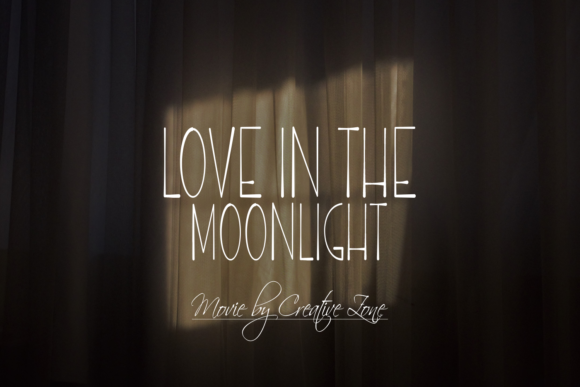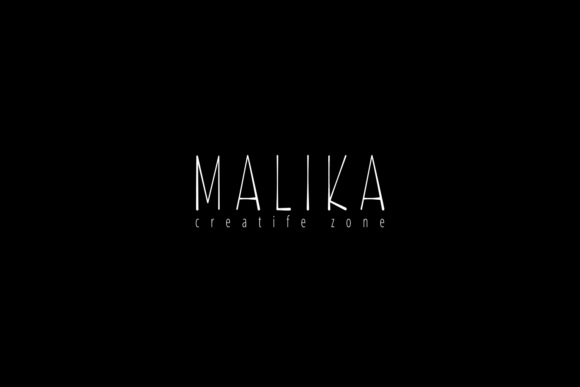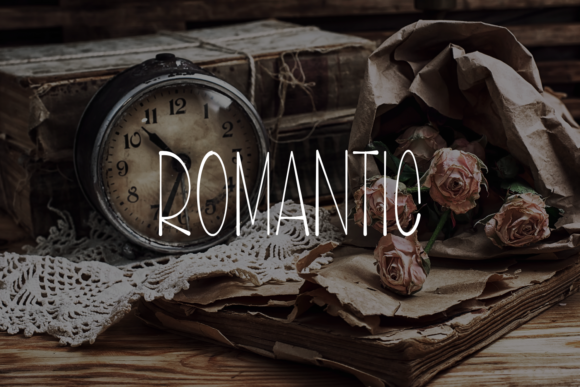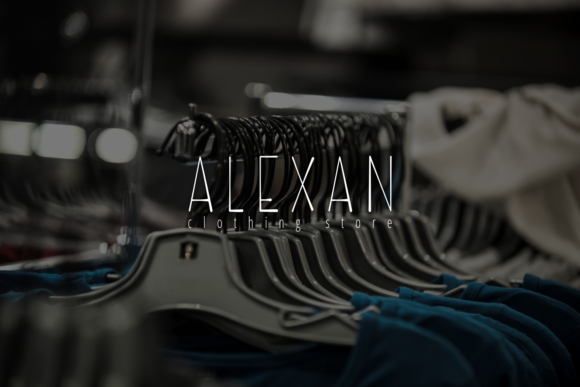
Discover the Elegance of Alho Font: A Minimal and Versatile Sans Serif
In the world of typography, fonts play a crucial role in conveying messages, evoking emotions, and creating lasting impressions. For designers and crafters, finding the perfect font can be a daunting task, but today, we’re excited to introduce you to Alho Font, a game-changing sans serif font that will elevate your creative projects to new heights.
What is Alho Font?
Alho Font is a minimal and thin lettered sans serif font, designed to make your creative ideas stand out. Its sleek and elegant design makes it an incredibly versatile font that can be matched to a wide range of projects. Whether you’re working on a branding campaign, a website, or a crafting project, Alho Font is the perfect choice.
Key Features of Alho Font
- Minimalist Design: Alho Font boasts a clean and minimalist design, making it perfect for projects that require a touch of elegance and sophistication.
- Thin Lettering: The font’s thin lettering ensures that your text remains clear and legible, even at small sizes.
- Sans Serif: The sans serif design of Alho Font makes it easy to read and versatile enough to be used in a variety of contexts.
- Highly Versatile: Alho Font can be used in a wide range of projects, from branding and advertising to web design and crafting.
Why Choose Alho Font?
With so many fonts available, why choose Alho Font? Here are just a few reasons why designers and crafters love this font:
- Elegance and Sophistication: Alho Font adds a touch of elegance and sophistication to any project, making it perfect for high-end brands and luxury products.
- Readability: The font’s clear and legible design ensures that your message is conveyed effectively, even at small sizes.
- Flexibility: Alho Font can be used in a variety of contexts, from digital media to print materials.
How to Use Alho Font in Your Projects
Alho Font is incredibly easy to use and can be incorporated into your projects in a variety of ways:
- Branding and Advertising: Use Alho Font to create stunning logos, business cards, and ad campaigns that exude elegance and sophistication.
- Web Design: Add Alho Font to your website to create a clean and modern look that will engage your visitors.
- Crafting and DIY: Use Alho Font to create beautiful signs, labels, and other craft projects that require a touch of elegance.
Tips and Tricks for Getting the Most Out of Alho Font
To get the most out of Alho Font, here are a few tips and tricks to keep in mind:
- Use it with contrasting colors: Alho Font looks stunning when paired with contrasting colors, so don’t be afraid to experiment.
- Experiment with different sizes: The font’s thin lettering ensures that it remains clear and legible at small sizes, so don’t be afraid to experiment with different sizes.
- Pair it with other fonts: Alho Font can be paired with other fonts to create a unique and eye-catching look.
In conclusion, Alho Font is a game-changing sans serif font that is sure to elevate your creative projects to new heights. Its minimalist design, thin lettering, and versatility make it the perfect choice for designers and crafters. Whether you’re working on a branding campaign, a website, or a crafting project, Alho Font is the perfect choice. So why wait? Download Alho Font today and discover the elegance and sophistication it can add to your projects.